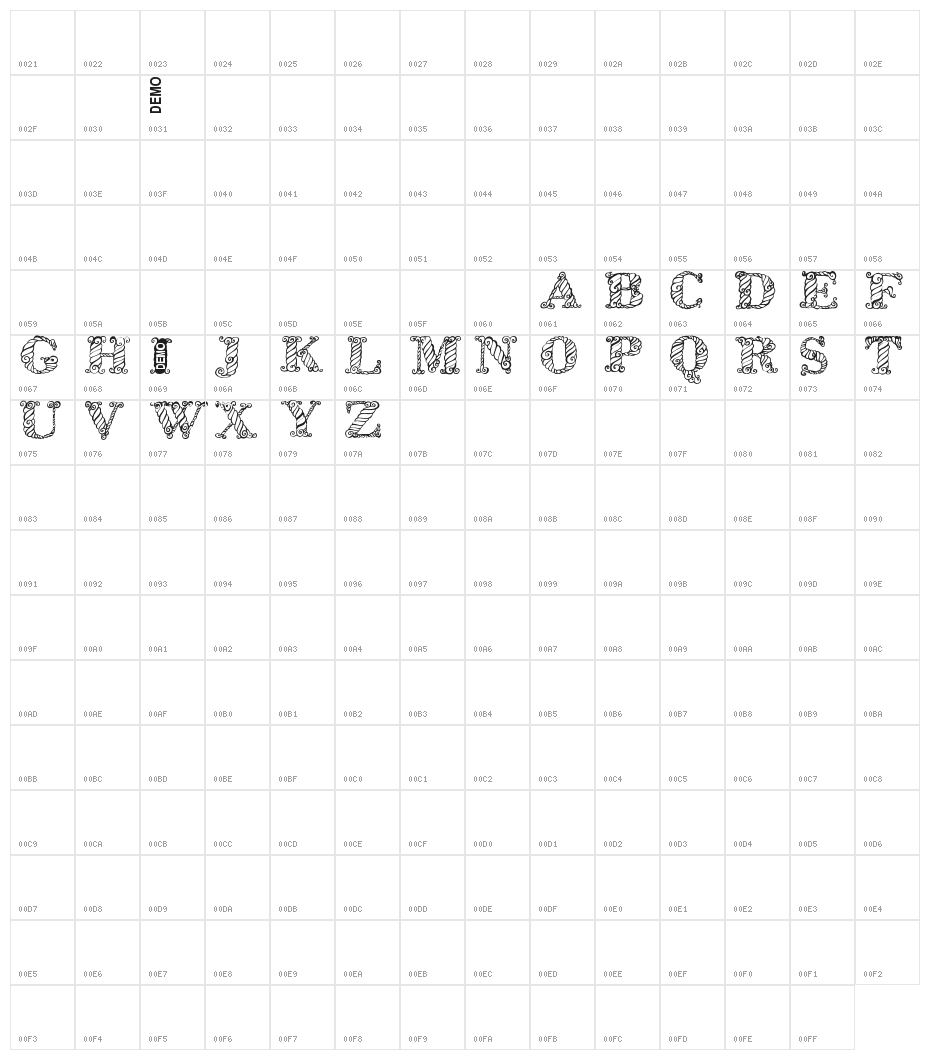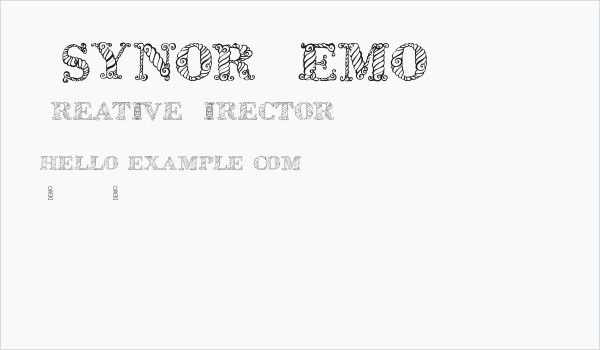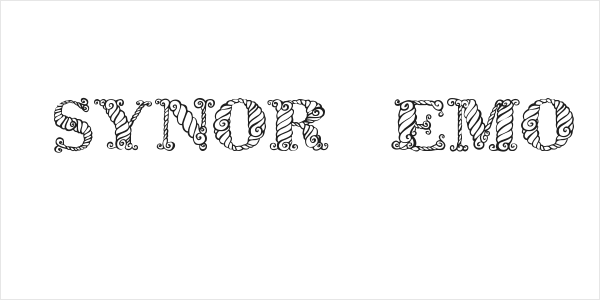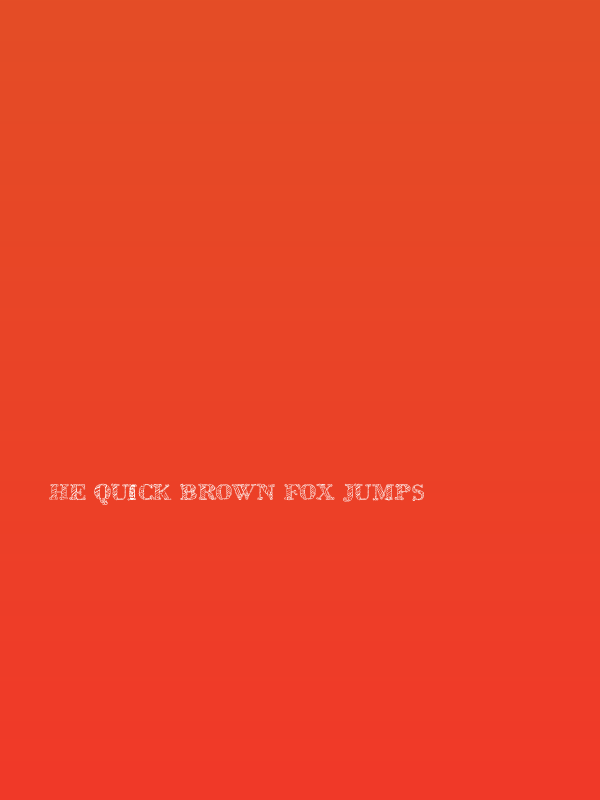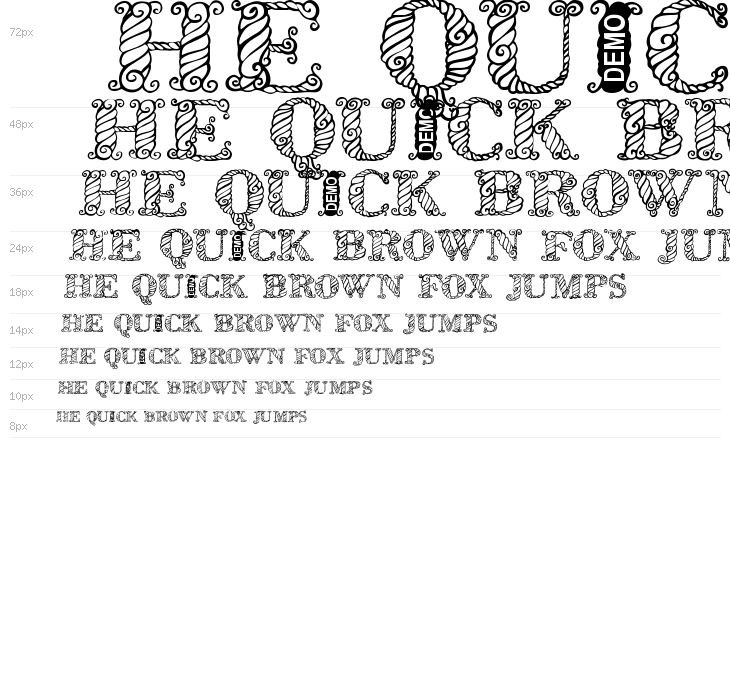
Zsynor Demo Font
Zsynor Demo Description
This font features an ornate and decorative style, characterized by intricate swirls and embellishments within each letterform. The uppercase letters are particularly elaborate, with each character showcasing unique patterns that resemble vintage filigree or lacework. The overall appearance is highly decorative, making it suitable for projects that require a touch of elegance and sophistication. The font maintains a consistent weight across all characters, providing a balanced and cohesive look. Its distinct style makes it ideal for creative and artistic applications where a bold statement is desired.
| Proposed Projects | Ideal for wedding invitations, event posters, luxury branding, and artistic projects. |